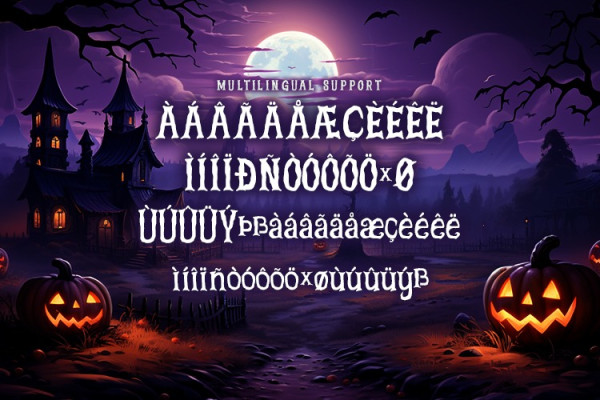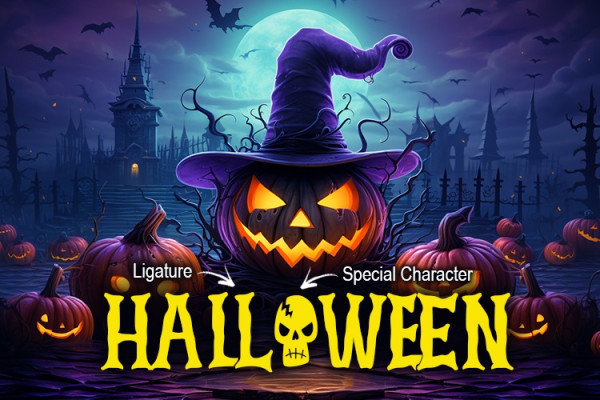
Halloween Nightmare Font
Halloween Nightmare Font is a spooktacular font typeface designed to add a chilling and eerie touch to your Halloween-themed projects. With its jagged edges, twisted letters, and creepy symbols, this font is perfect for creating bone-chilling posters, haunted house flyers, spooky invitations, and other Halloween-related designs. Unleash the terror and give your text a frightening makeover with the “Halloween Nightmare” font typeface! 🎃👻🕷️
Uppercase, numbers, punctuations
Multilingual support , ligature, special characters
Opentype features (Stylistic and Contextual alternates, Standart and Discretionary ligatures)